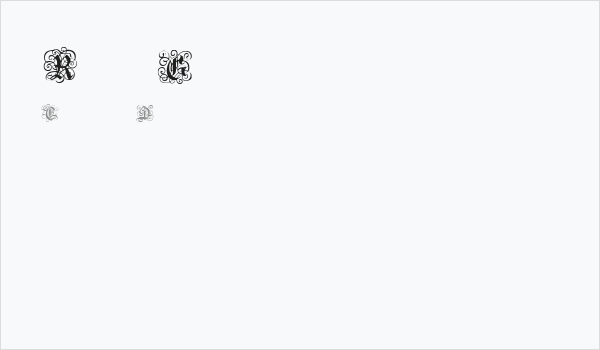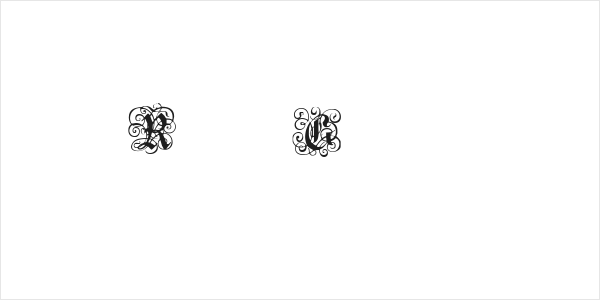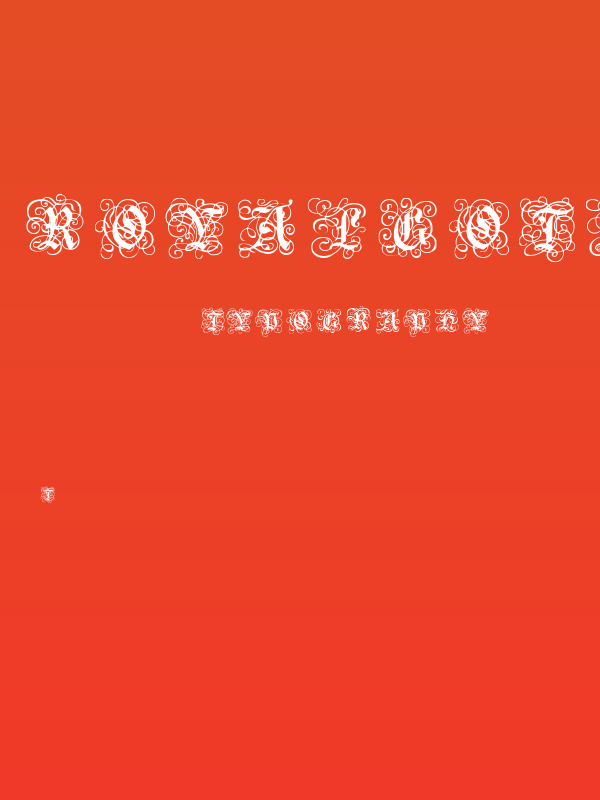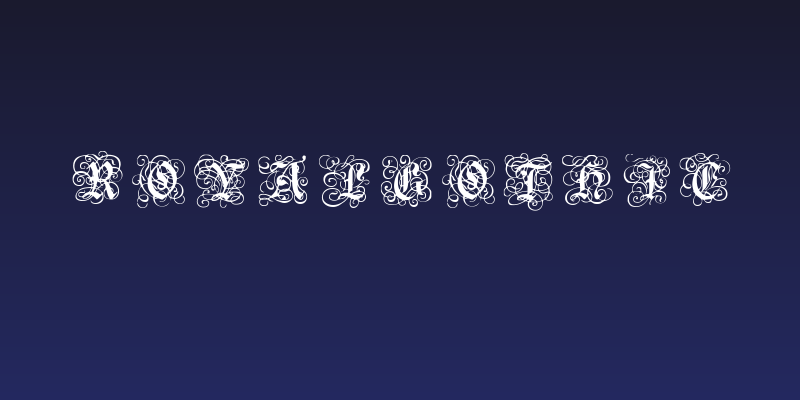
RoyalGothic Font
RoyalGothic Description
This font is an ornate and decorative typeface that features intricate swirls and flourishes, reminiscent of Gothic and Baroque styles. Each letter is heavily embellished, creating a sense of elegance and grandeur. The complexity of the design makes it stand out, with each character appearing almost like a piece of art. The font is best suited for display purposes where a touch of sophistication and historical charm is desired. Its elaborate style may not be suitable for body text but excels in creating striking headlines or logos.
Overall StyleVintage
Use CaseHeadlines, Logos
Proposed ProjectsIdeal for wedding invitations, luxury branding, historical-themed projects, or any design requiring a touch of elegance and sophistication.